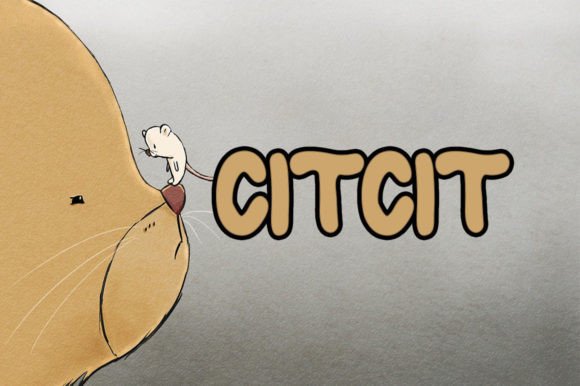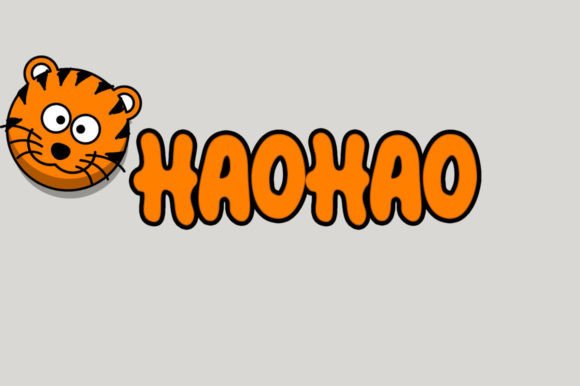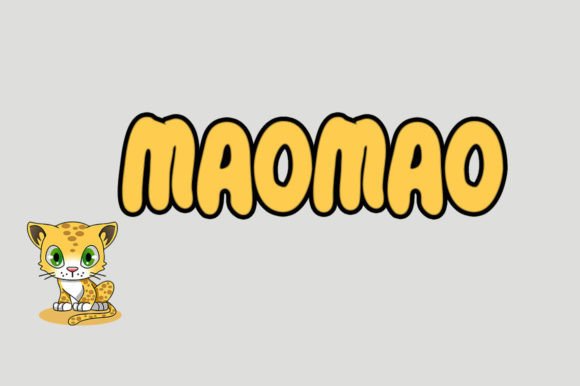
Discovering the Perfect Touch: Introducing Baobao Font
Have you ever been working on a design project, pouring your heart and soul into it, only to feel like something’s missing? That’s when the magic of the perfect font comes in – the icing on the cake, the cherry on top, the sparkle that makes it all come together. For many designers, finding that elusive font is a constant quest, and today, we’re excited to share with you a game-changer: the Baobao Font.
This stylish, handwritten font is the ultimate go-to for any creative project. From greeting cards and wedding themes to Christmas and birthday celebrations, the Baobao Font adds a touch of elegance and whimsy that elevates your design to the next level. Whether you’re a seasoned pro or a budding designer, this versatile font is sure to become a trusted companion in your creative journey.
Baobao Font Key Features
- Font Family: Baobao Font is a sans-serif font family with a unique, modern design.
- Unique Characteristics: Baobao Font features a distinctive, rounded design with a subtle flair, making it perfect for modern branding, digital products, and editorial content.
Review of Baobao Font
As a designer, I’ve had the chance to experiment with the Baobao Font, and I must say it’s an interesting addition to any design project. ✨ The font’s unique blend of traditional and modern elements makes it a great choice for projects that require a touch of cultural authenticity. The font’s character set is comprehensive, making it suitable for a wide range of languages.
Here are some things that work well with the Baobao Font:
- ✨ Unique aesthetic that sets it apart from other fonts
- ✨ Comprehensive character set for multilingual projects
- ✨ Well-suited for cultural or traditional-themed designs
Overall, the Baobao Font is a solid choice for designers looking for a unique and culturally relevant font. While it may have some limitations, its strengths make it a worthwhile addition to any design project.
The Baobao Font is suitable for various design applications, including:
2. Branding and logos.
3. Social media graphics and posters.
4. Editorial and magazine layouts.